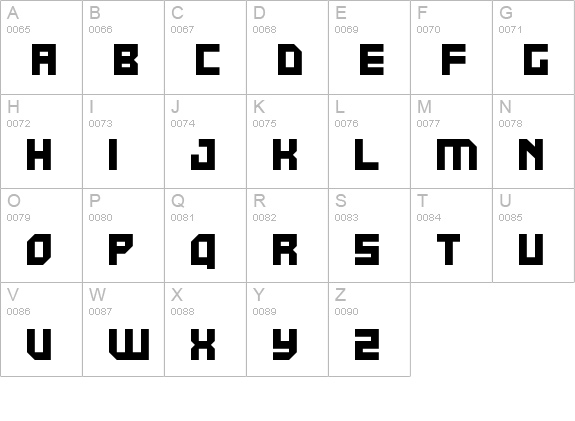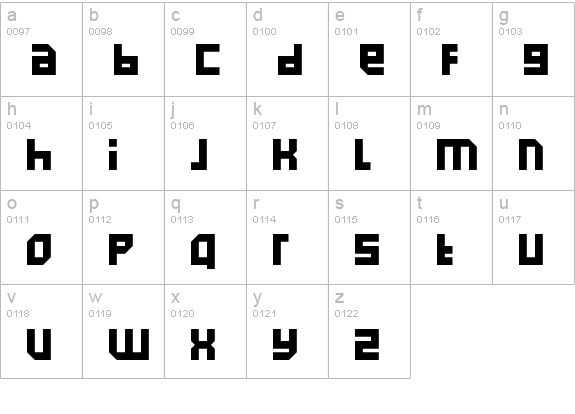
Pixel Powerline Font Details
Pixel Powerline is a donationware font in the Modern > Techno category, designed by Darrell Flood. It has been downloaded 41 times and is available for Windows, Mac and Linux.
Introducing Pixel Powerline font, a modern and stylish typeface perfect for adding a touch of sophistication to your designs. This unique font features clean lines and a sleek, minimalist design that will make your projects stand out. Whether you're designing a website, creating a logo, or crafting a poster, Pixel Powerline font is sure to make a bold statement.